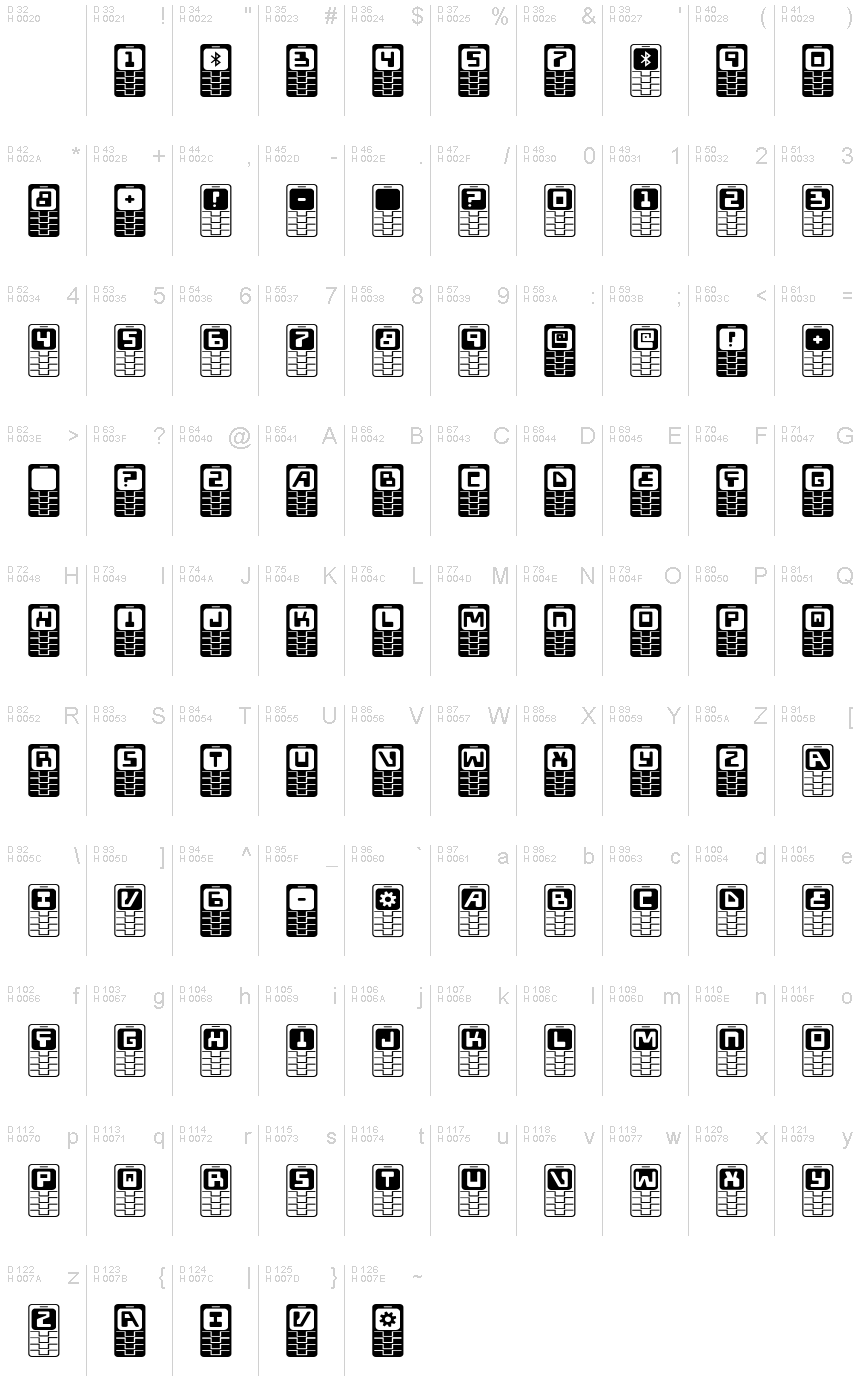
Hola Mota Expanded
Hola Mota Expanded, a captivating display font designed by Iconian Fonts, exudes a retro-inspired aesthetic with its distinctive expanded letterforms. This decorative typeface commands attention, evoking a sense of nostalgic charm and technological allure. The bold, geometric shapes and well-defined contours lend an air of confidence and modernity, making Hola Mota Expanded a versatile choice for a variety of design applications.
The font's expanded width and bold strokes create an impactful visual presence, making it an excellent selection for eye-catching headlines, signage, and branding elements. Its retro-futuristic flair lends itself particularly well to projects with a vintage or digital theme, such as album covers, movie posters, and product packaging. Hola Mota Expanded's strong personality and legibility make it a compelling option for designers seeking to infuse their work with a touch of retro-inspired charm and technological sophistication.